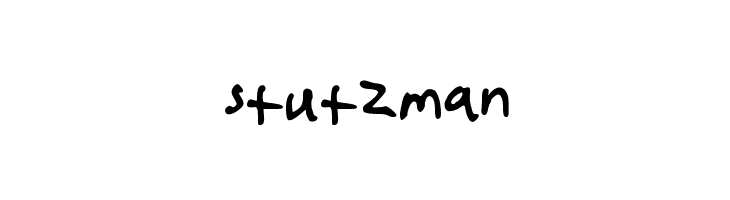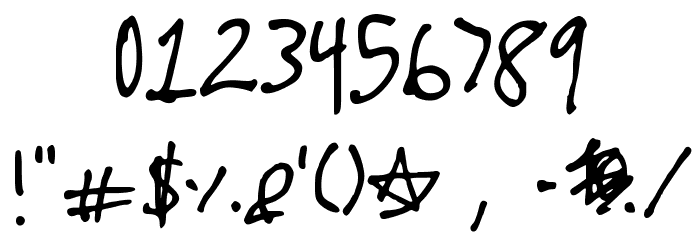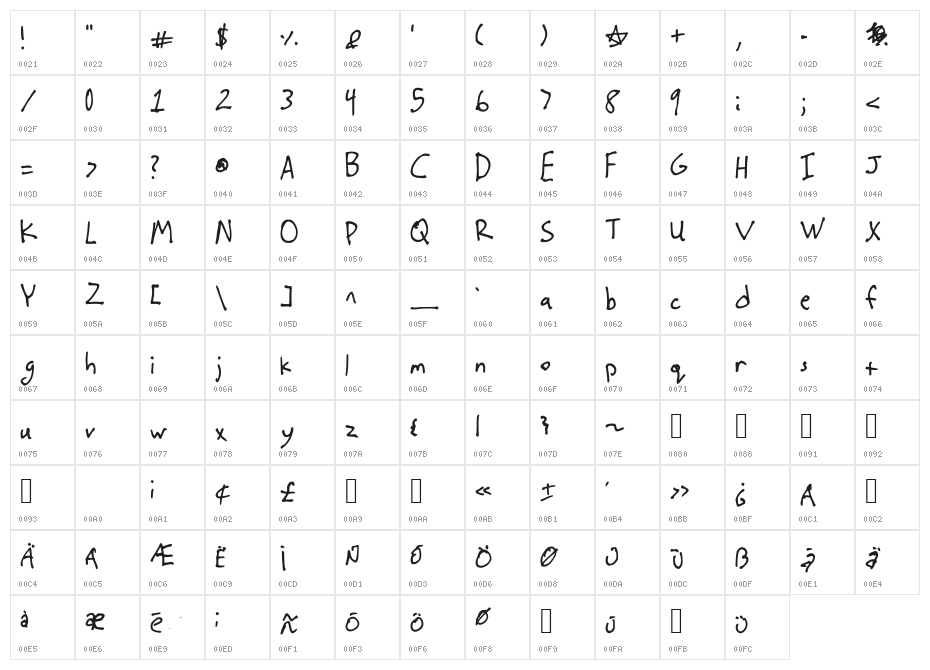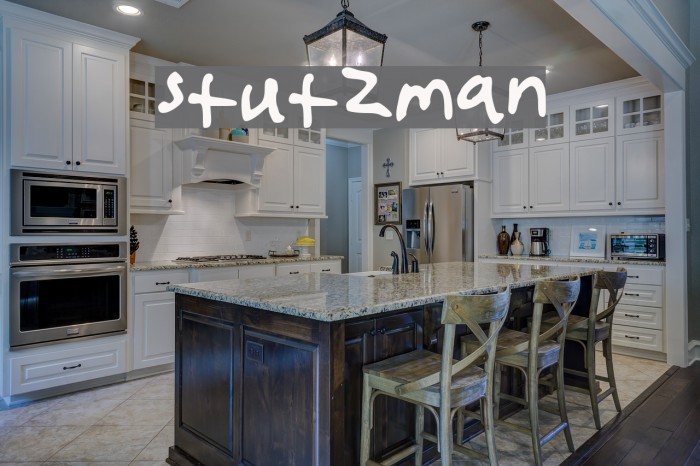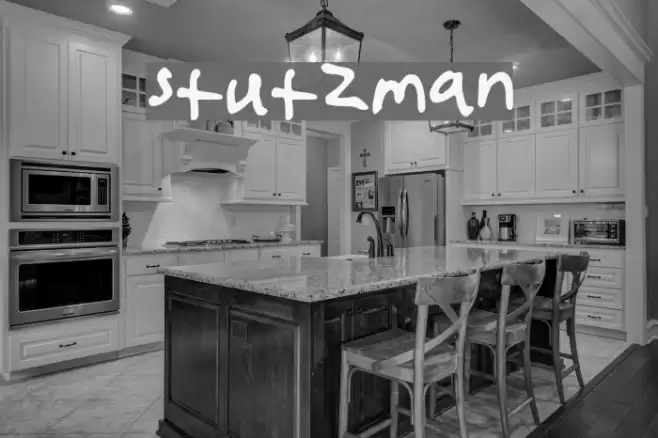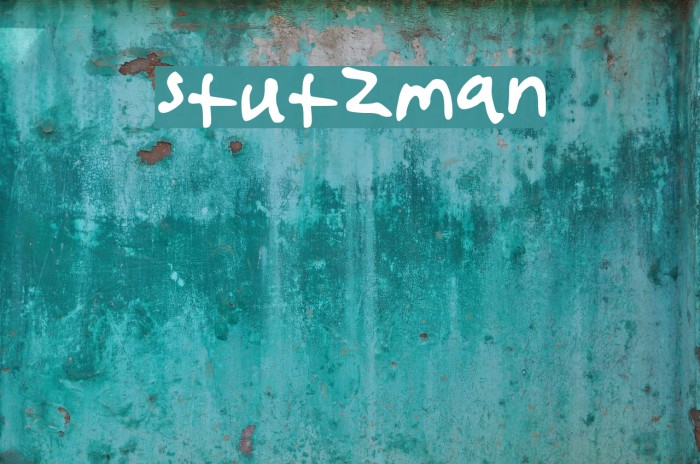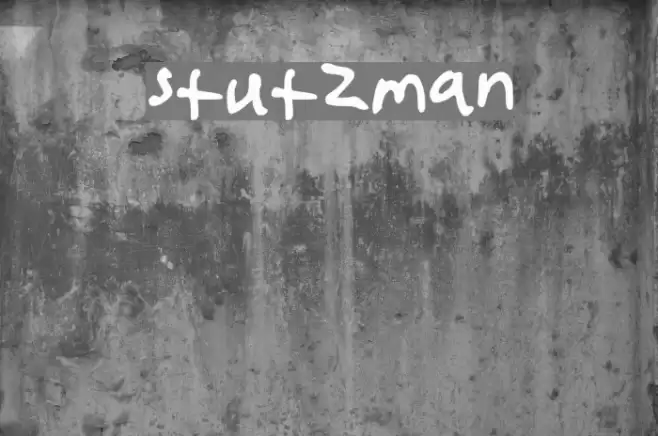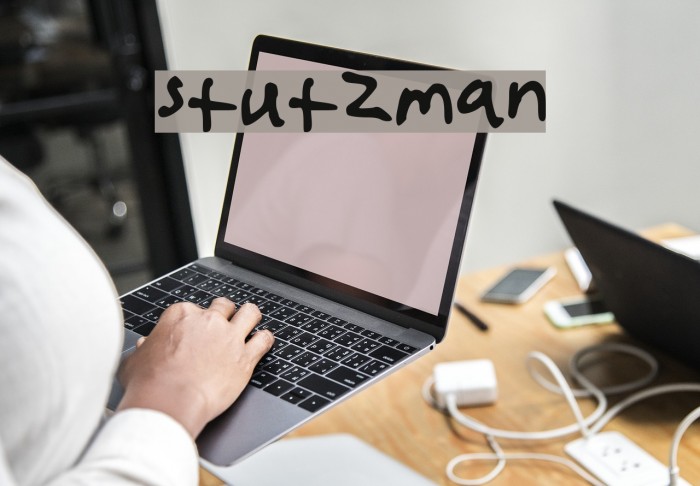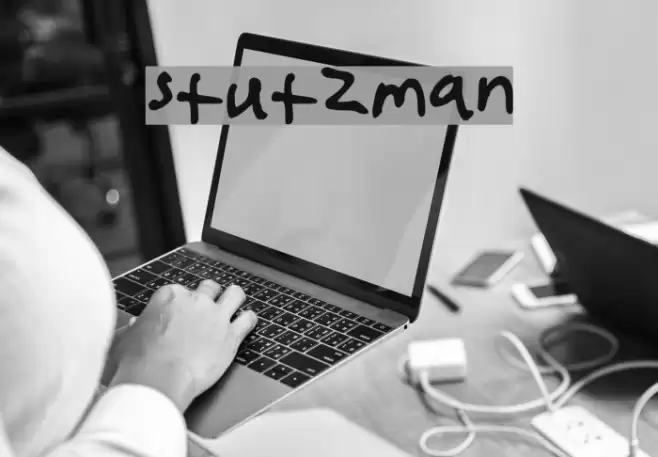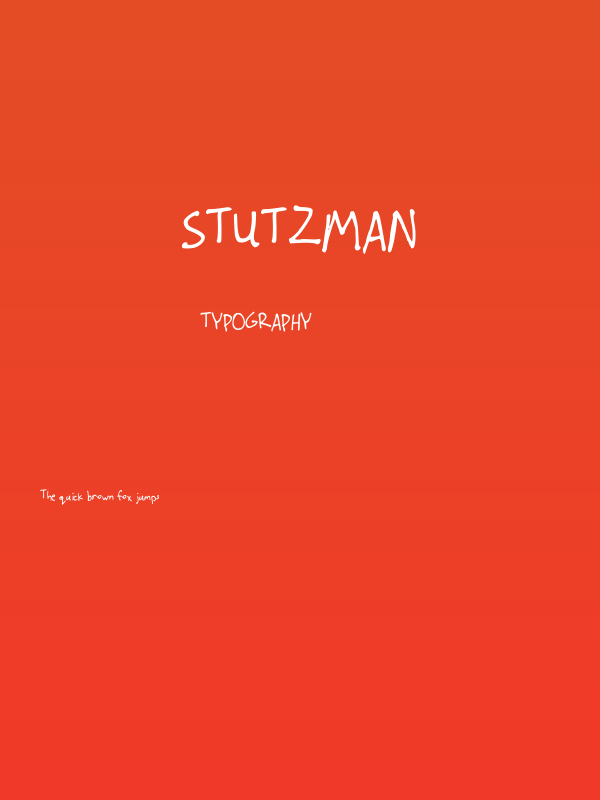
stutzman Font
stutzman Description
This font features a playful, handwritten style with a casual and informal appearance. The characters are unevenly weighted, giving it a dynamic and lively feel. The uppercase letters are bold and slightly irregular, while the lowercase letters maintain a consistent flow with a touch of whimsy. Numbers and special characters follow the same playful aesthetic, making the font suitable for creative and fun projects. The overall look is approachable and friendly, perfect for conveying a personal touch.